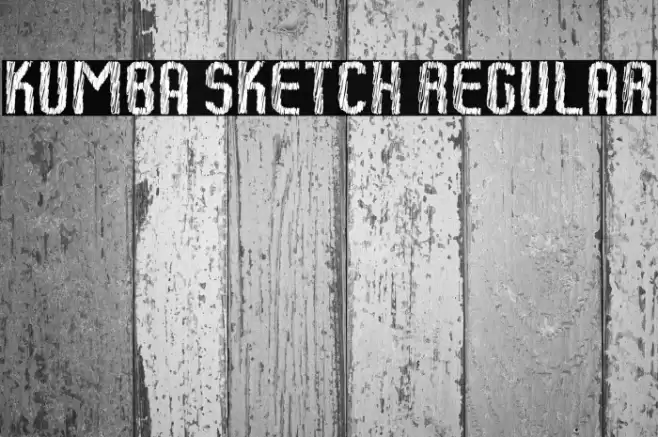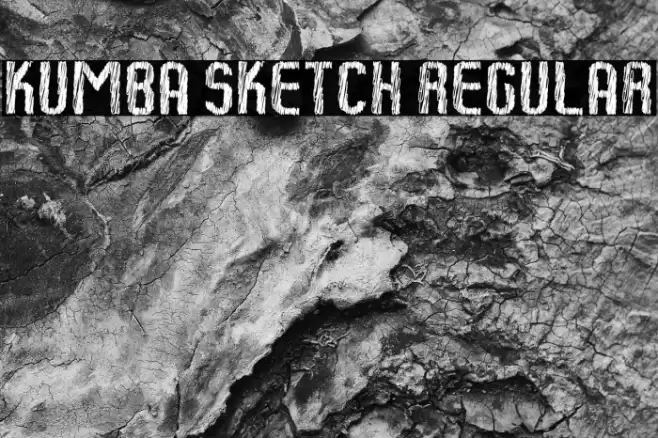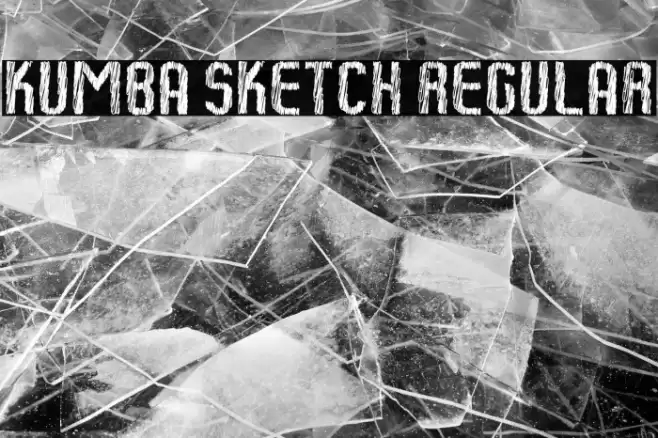
Kumba Sketch Regular Font
Kumba Sketch Regular Description
This font features a unique sketch-like appearance, with each character appearing as if it has been hand-drawn with a textured, scribbled effect. The letters are bold and slightly slanted, giving them a dynamic and energetic feel. The uppercase and lowercase letters maintain a consistent style, with a playful yet structured form. Numbers and special characters follow the same design, ensuring uniformity across all glyphs. The font's rough edges and irregular strokes add to its artistic charm, making it stand out in creative projects.
A bold, sketch-style font with a hand-drawn, textured appearance from Uncategorized fonts.
- Proposed Projects: Ideal for artistic projects, posters, branding, and any design requiring a creative, hand-crafted look.
- Use Case: Logos, Posters, Creative projects